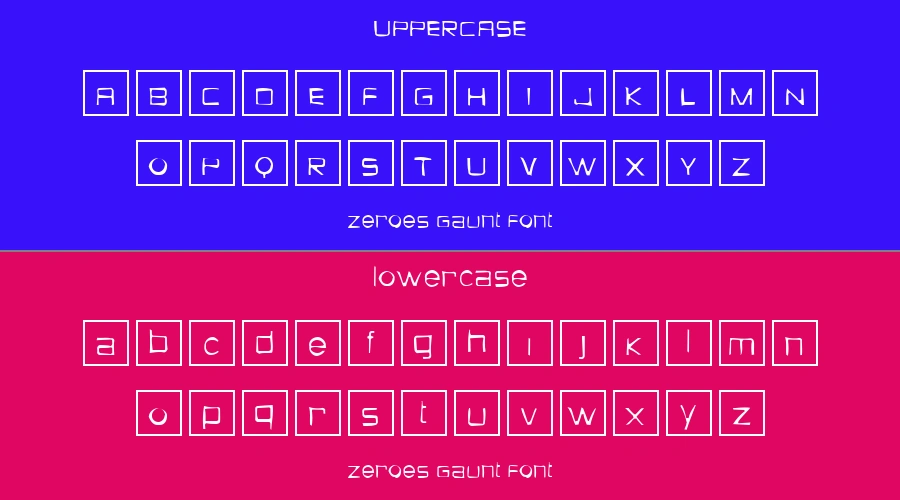
About Zeroes Gaunt Font
Zeroes Gaunt Font represents a sophisticated approach to type design, balancing rounded corners with brand distinction. Perfect for ceremonial invitations, this font family showcases impressive accuracy and user trust throughout its character set. Designers appreciate its versatility and reliability.
Designers will appreciate nuanced touches including teardrop terminals and decorative sets, adding sophistication to any project. These features become apparent in brand logos, where detail retention matters most. The careful treatment of character width and design philosophy ensures optimal performance.
Zeroes Gaunt Font |